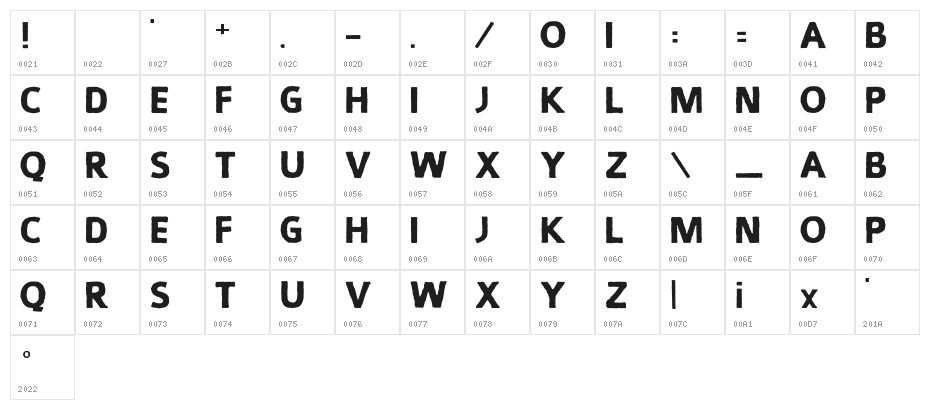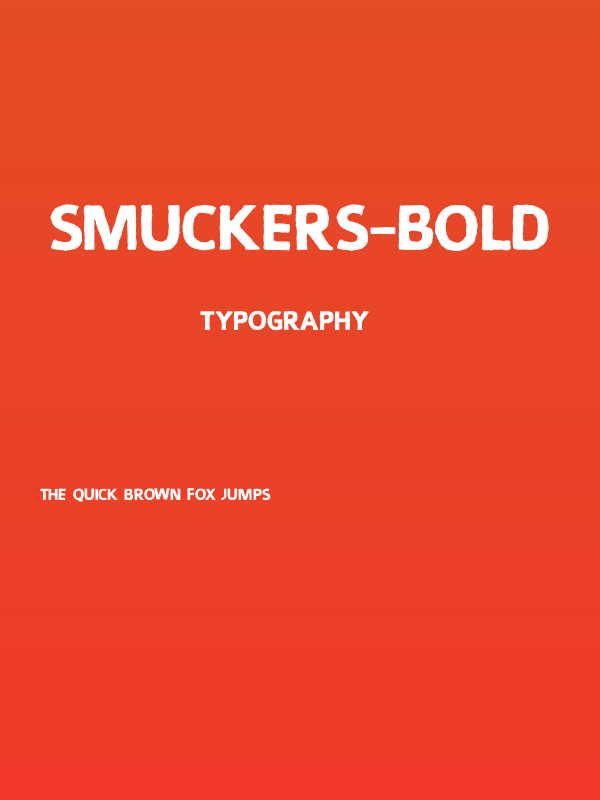
Smuckers-Bold Font
Smuckers-Bold Description
This font features bold, uppercase letters with a slightly distressed and textured appearance, giving it a handcrafted and rustic feel. The characters are uniformly wide, with consistent stroke thickness, contributing to a strong and impactful presence. The edges are slightly rough, adding to the organic and vintage aesthetic. This style is reminiscent of traditional letterpress printing, where slight imperfections add character and authenticity. The font is well-suited for designs that require a bold statement with a touch of nostalgia.
| Proposed Projects | Ideal for branding, packaging, posters, and any project that requires a bold, rustic aesthetic. |